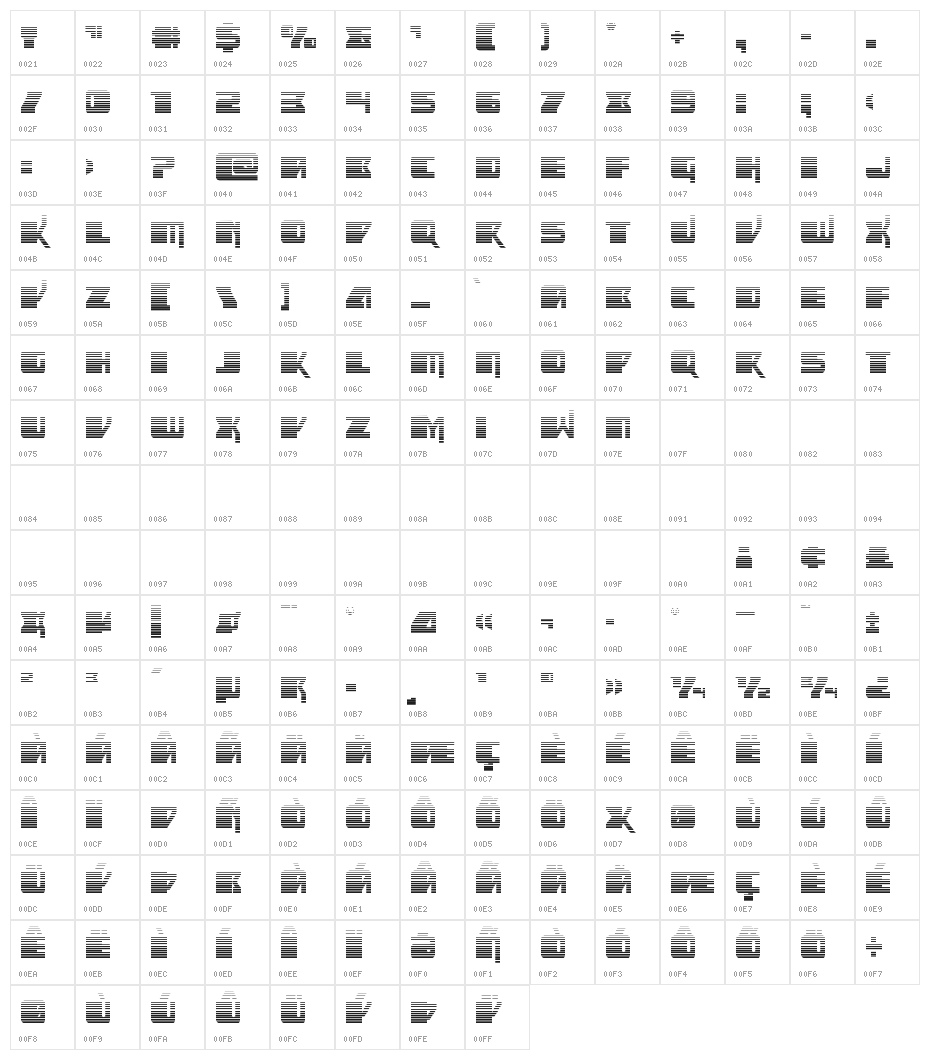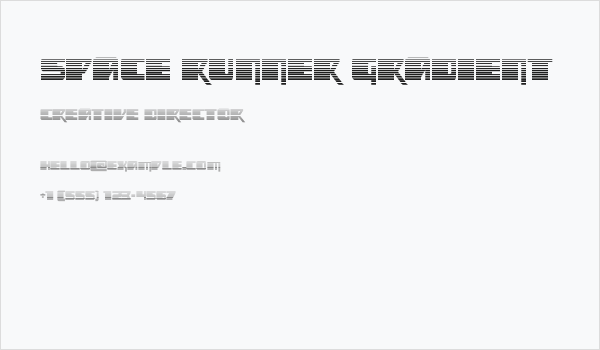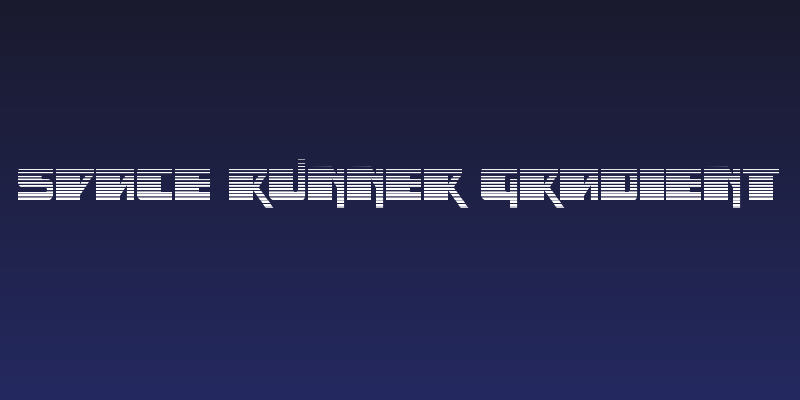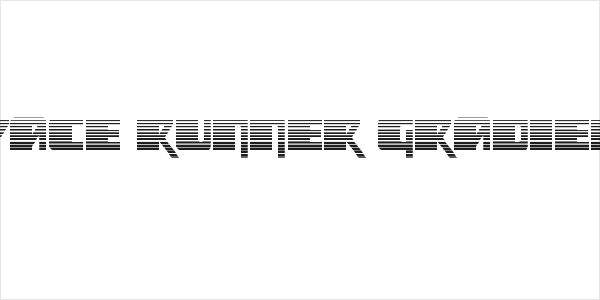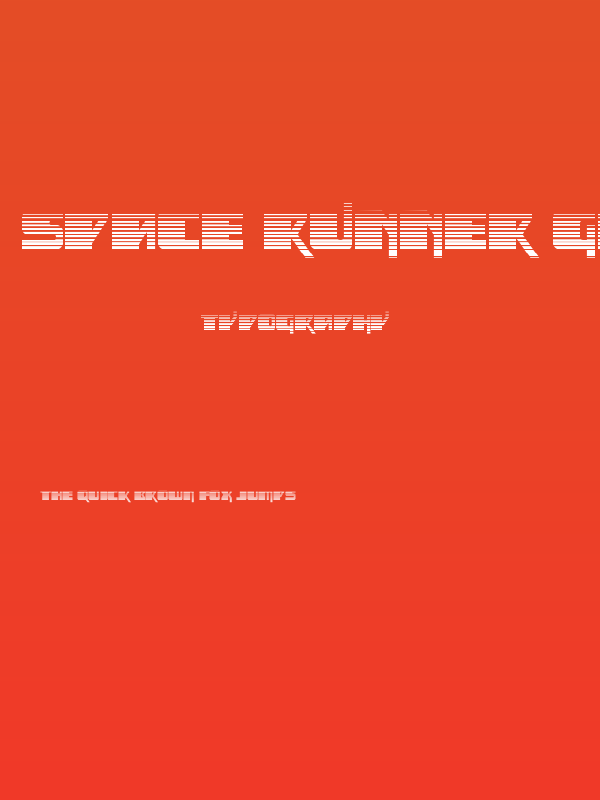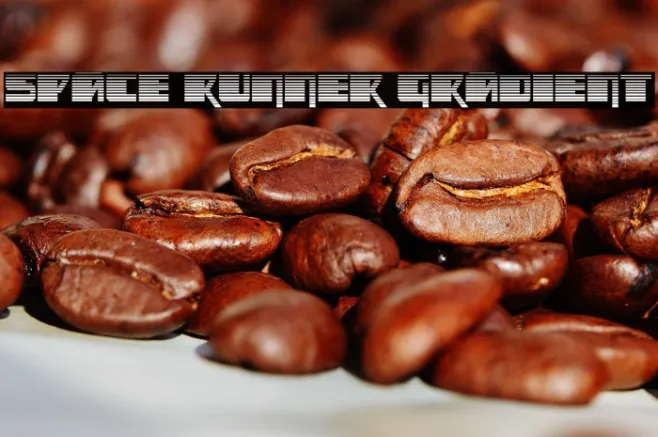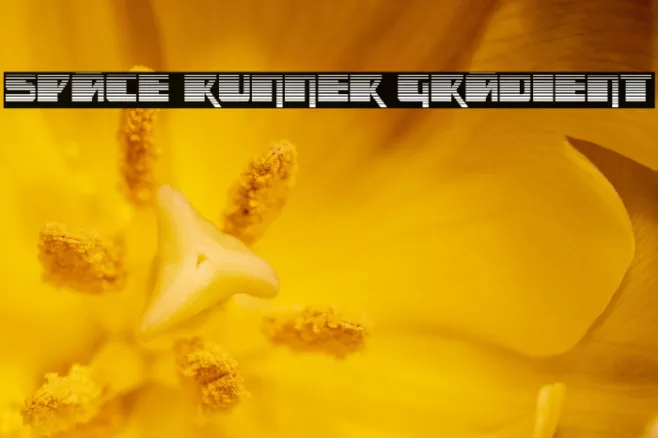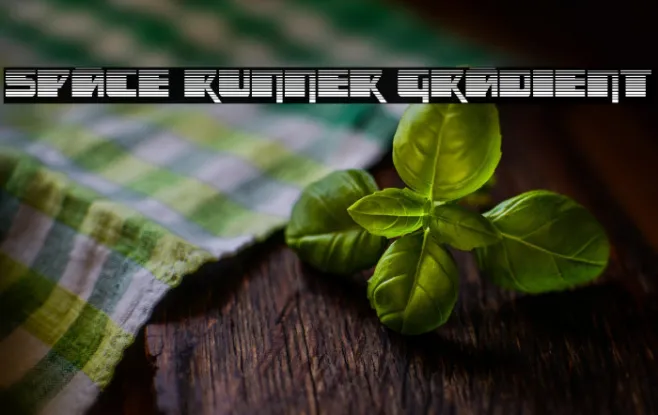
Space Runner Gradient Font
Space Runner Gradient Description
This font features a futuristic and dynamic design, characterized by its horizontal line patterns that create a sense of movement and speed. The letters are bold and structured, with a geometric style that emphasizes sharp angles and clean lines. The consistent use of horizontal stripes across all characters gives it a unique, cohesive appearance, reminiscent of digital or sci-fi themes. This font is particularly striking in its ability to convey a sense of modernity and technological advancement. The spacing between characters is tight, enhancing its compact and efficient look.
| Proposed Projects | Ideal for sci-fi movie posters, tech company logos, video game titles, and futuristic-themed event flyers. |